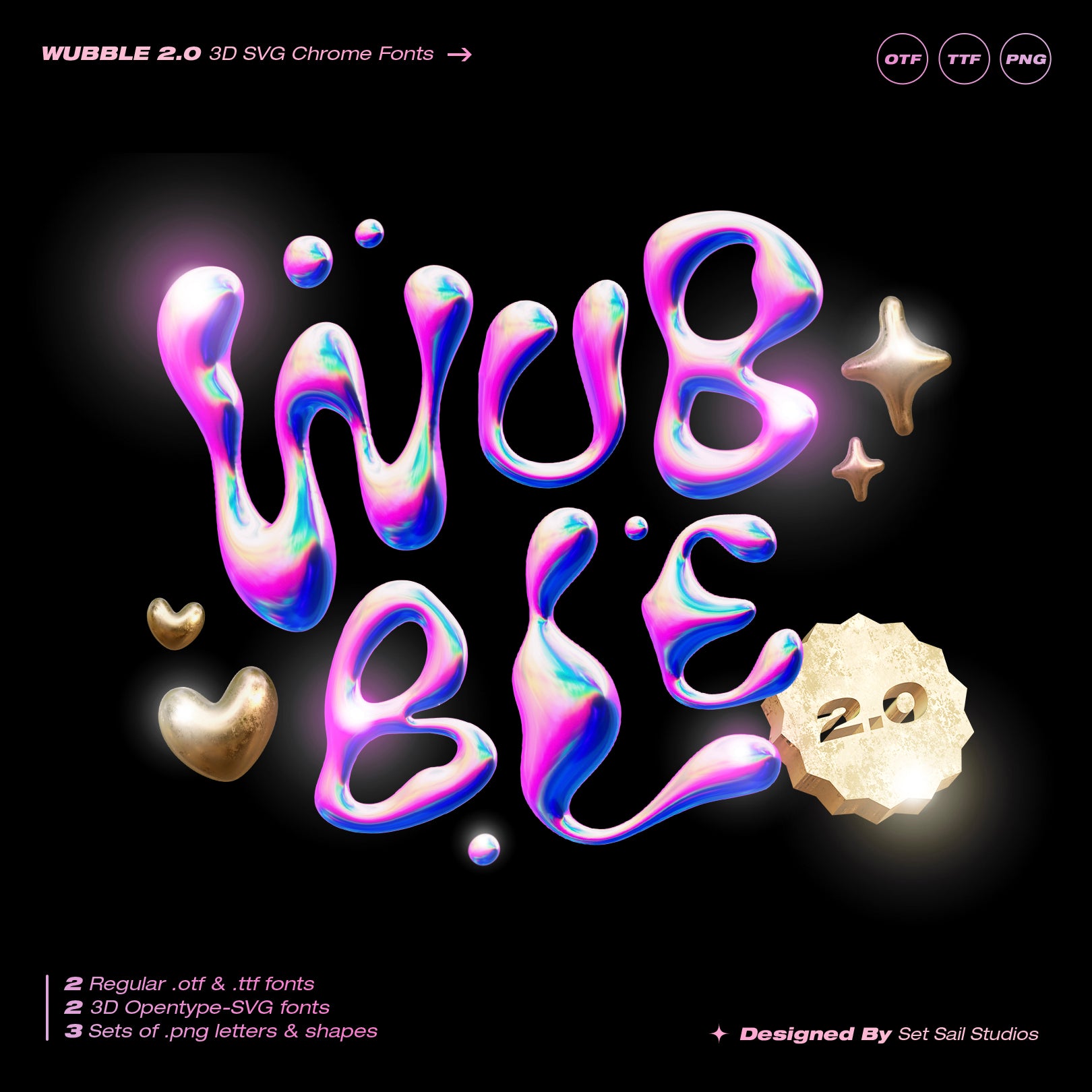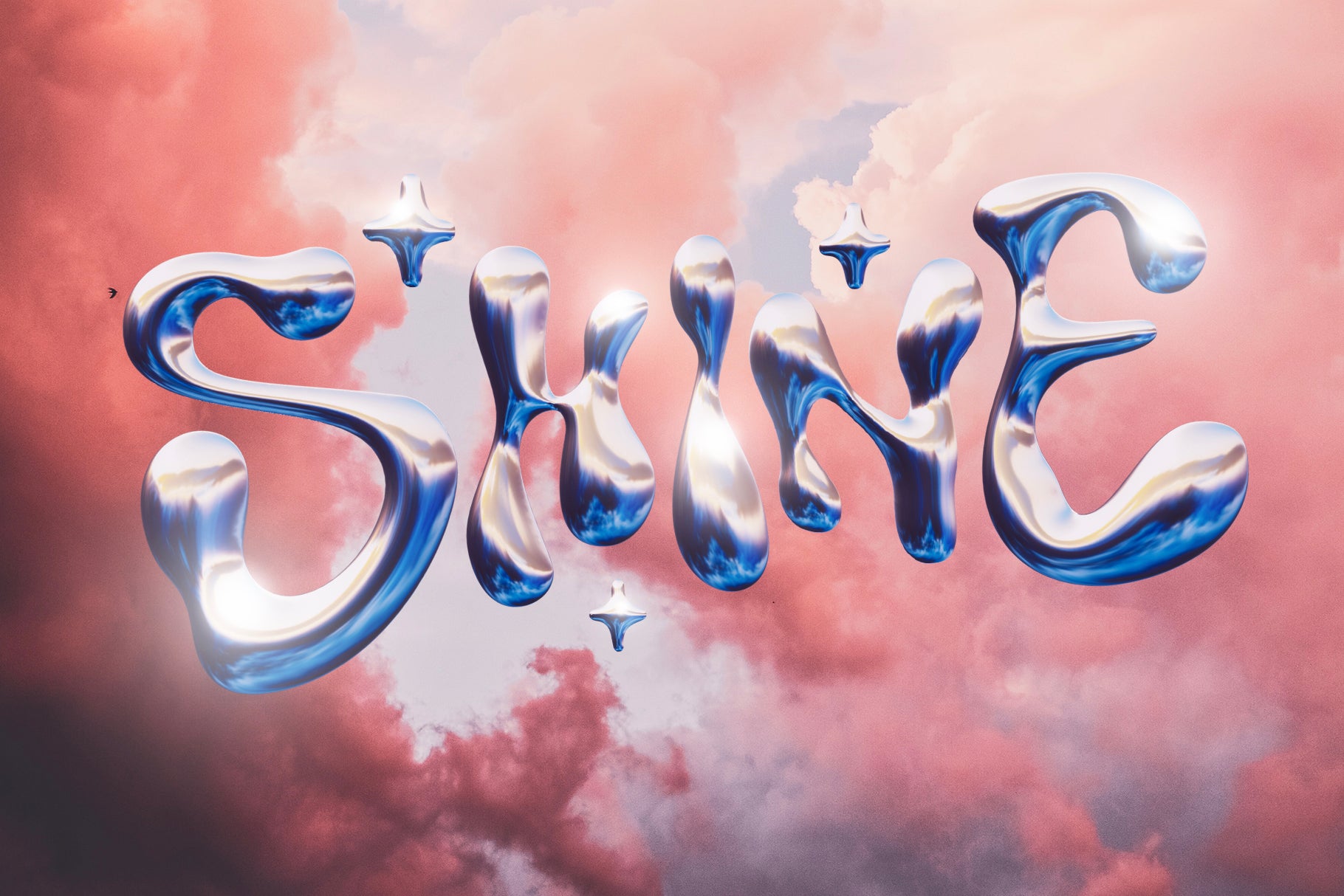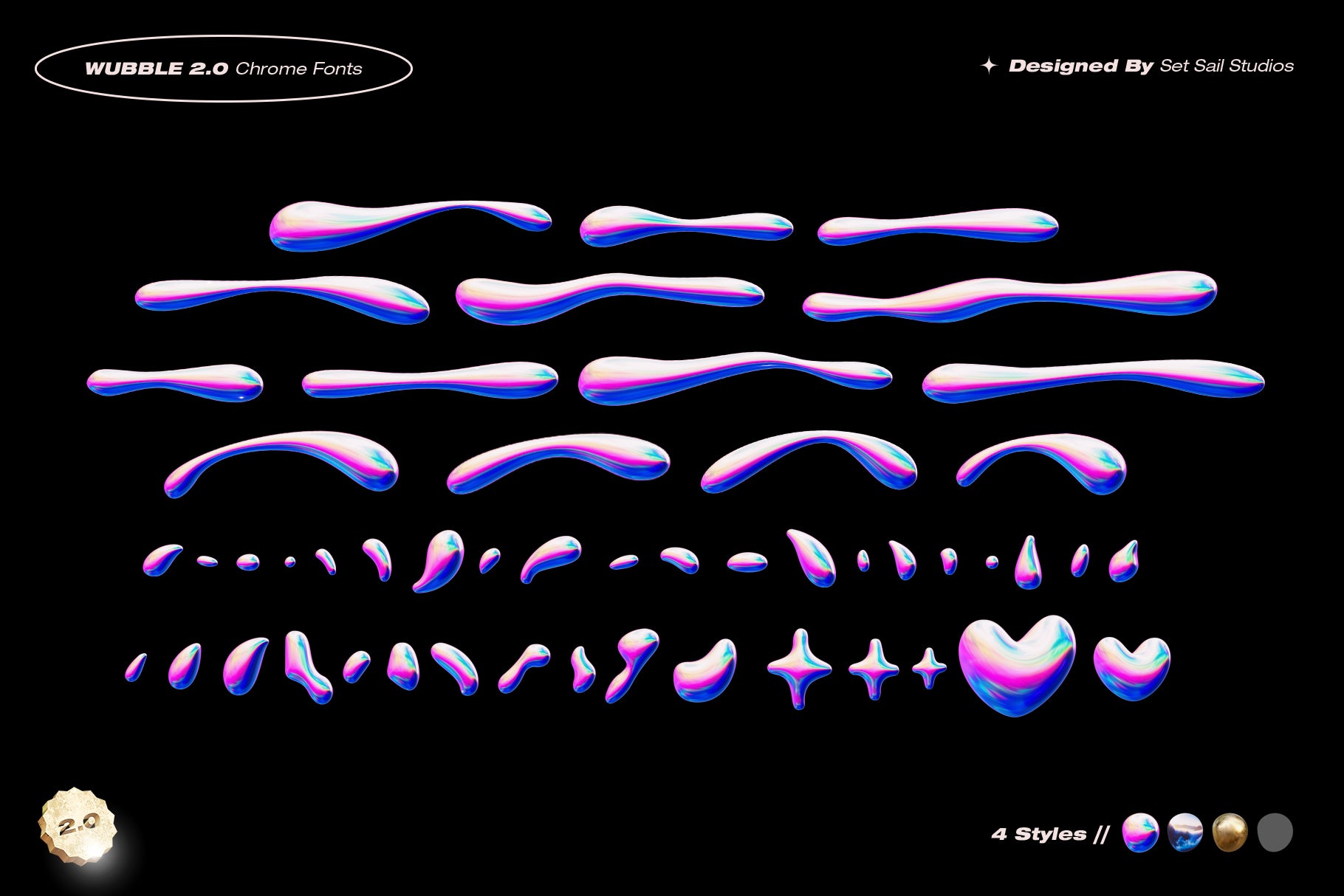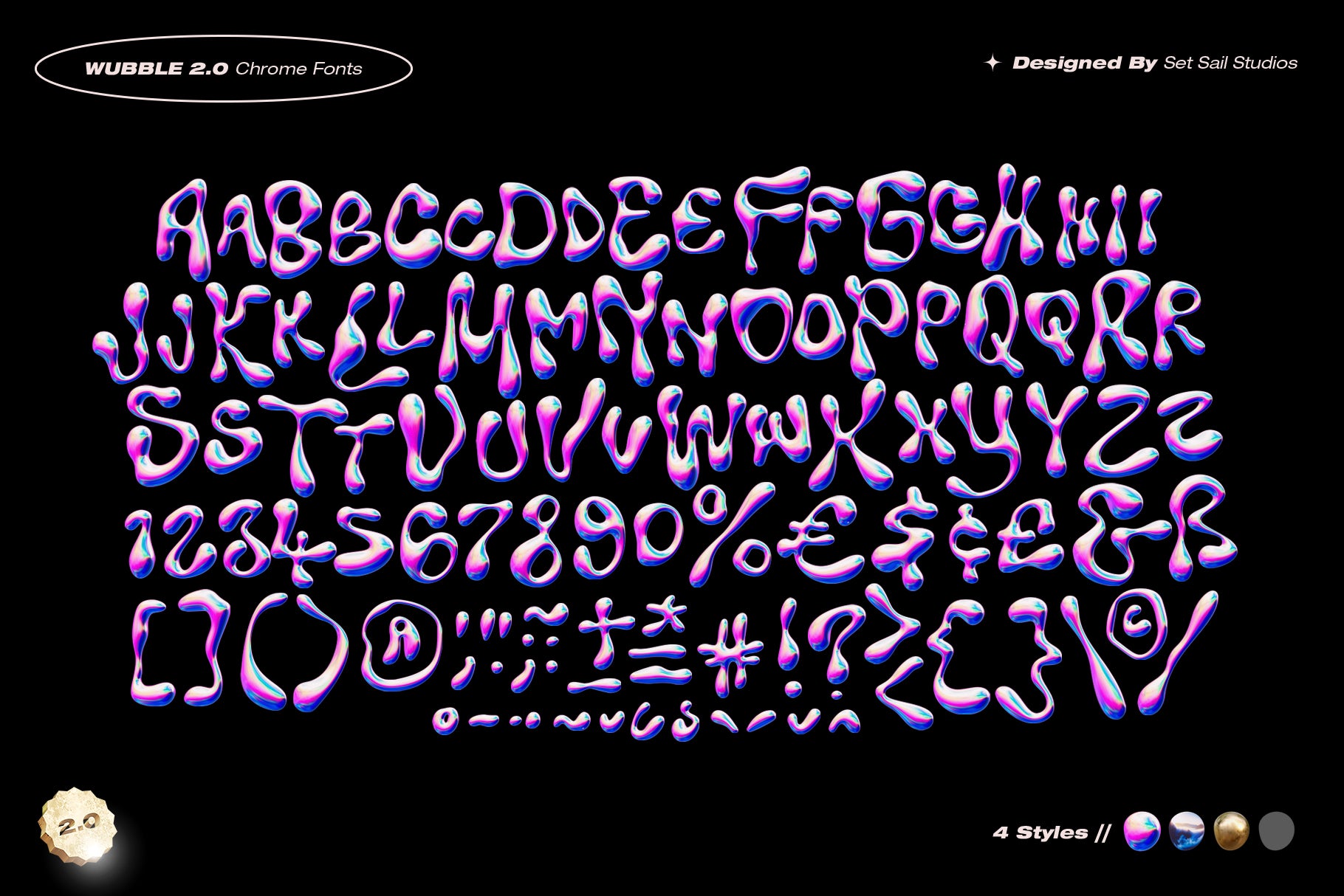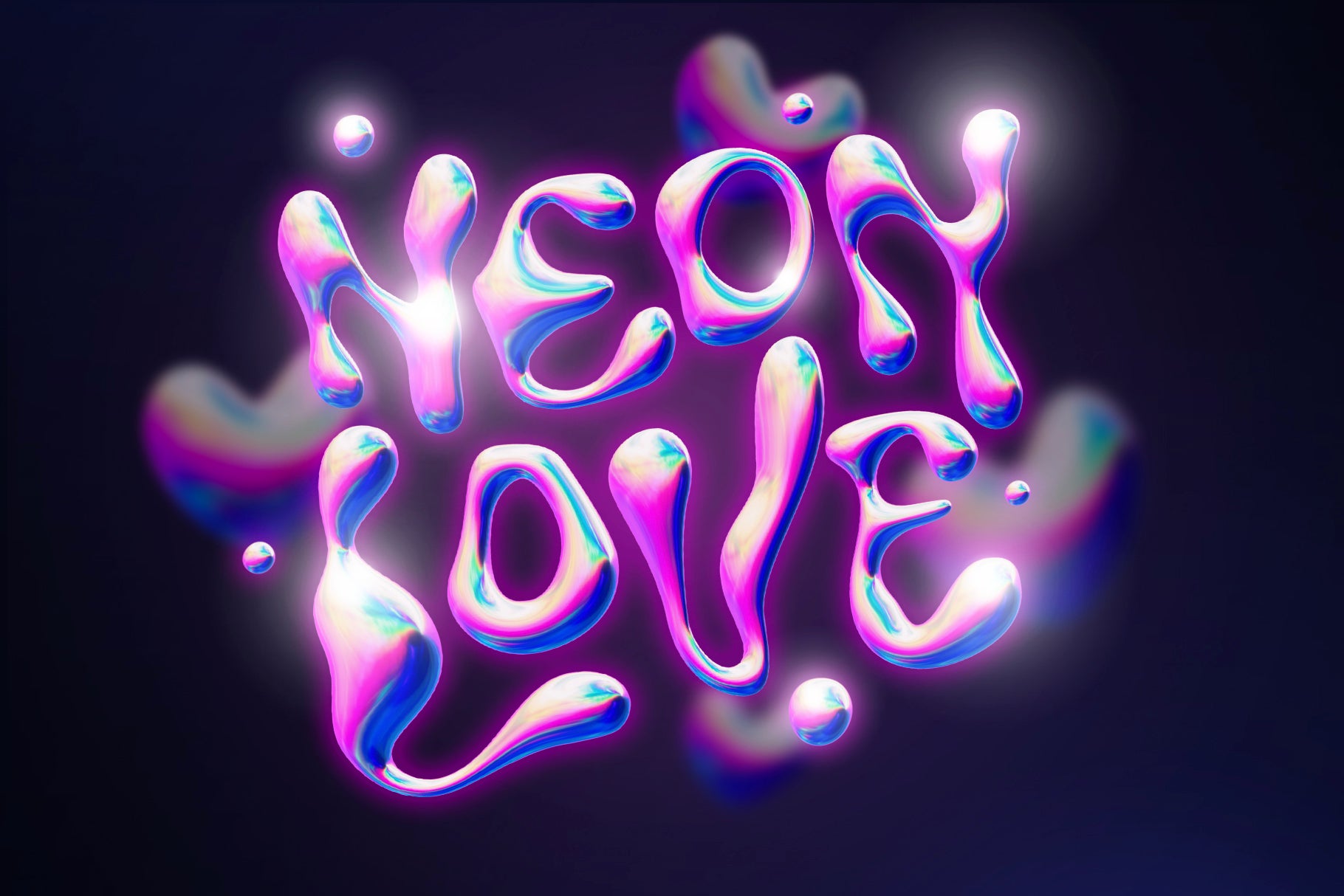
Wubble 2.0 3D Chrome Font Set
The Wubble 2.0 3D Chrome Font Set includes 2 SVG fonts, 2 Regular OTF fonts, and 3 sets of .png characters in Glossy Chrome, Rough Gold, and Holographic styles. It features a full set of upper and lowercase characters, numerals, punctuation, multilingual support, and 50 swashes and shapes, with compatibility for various design software.